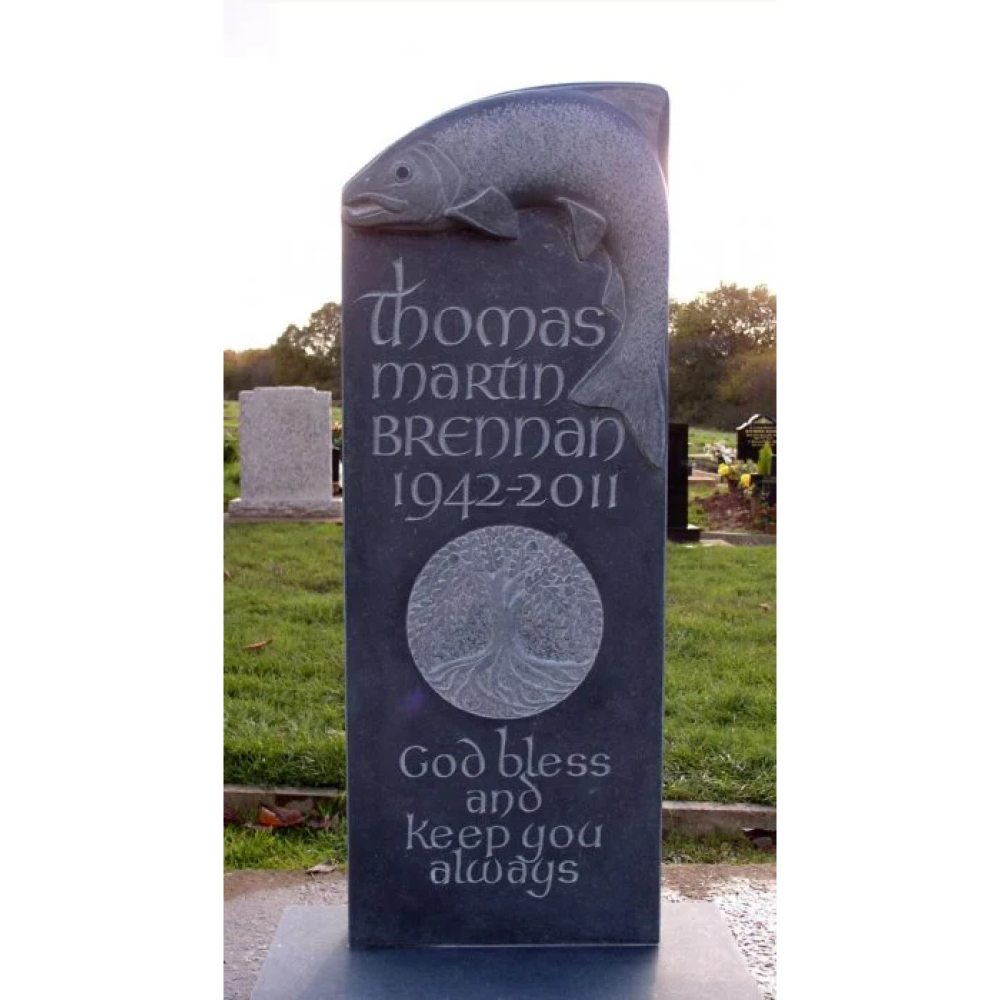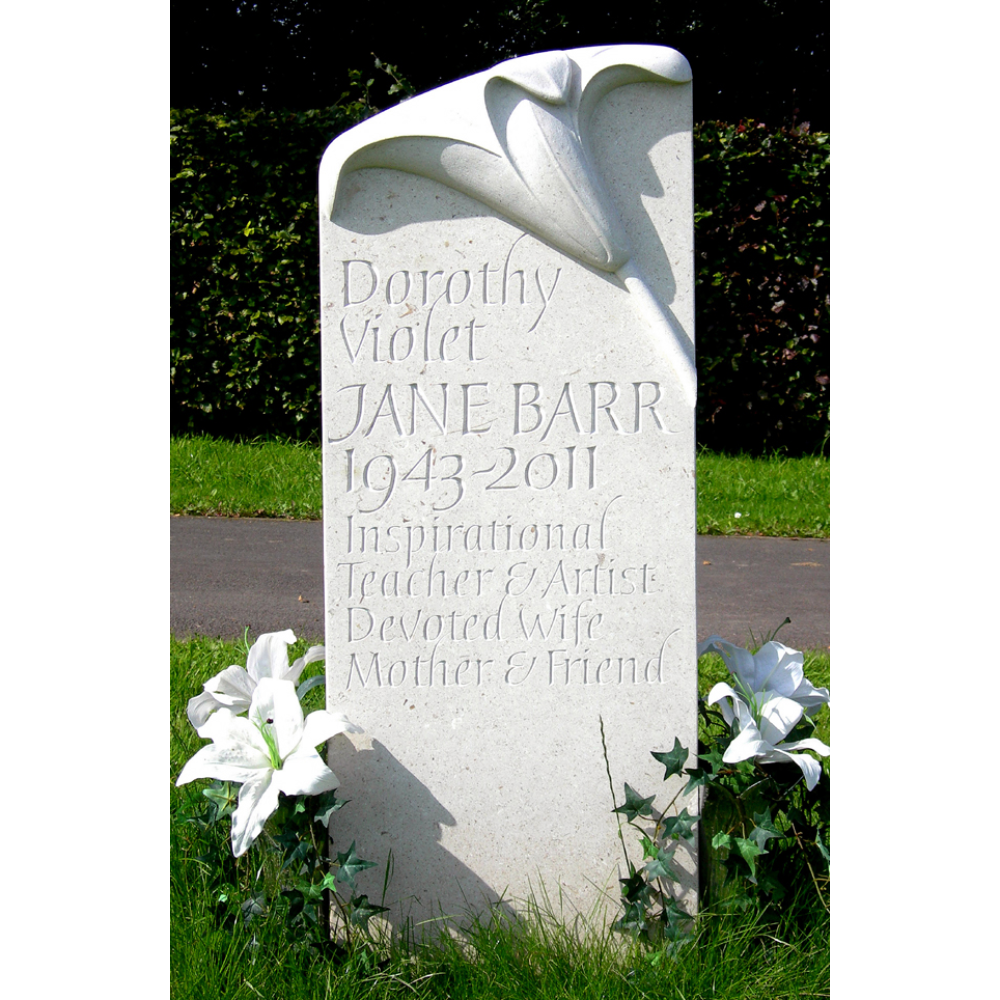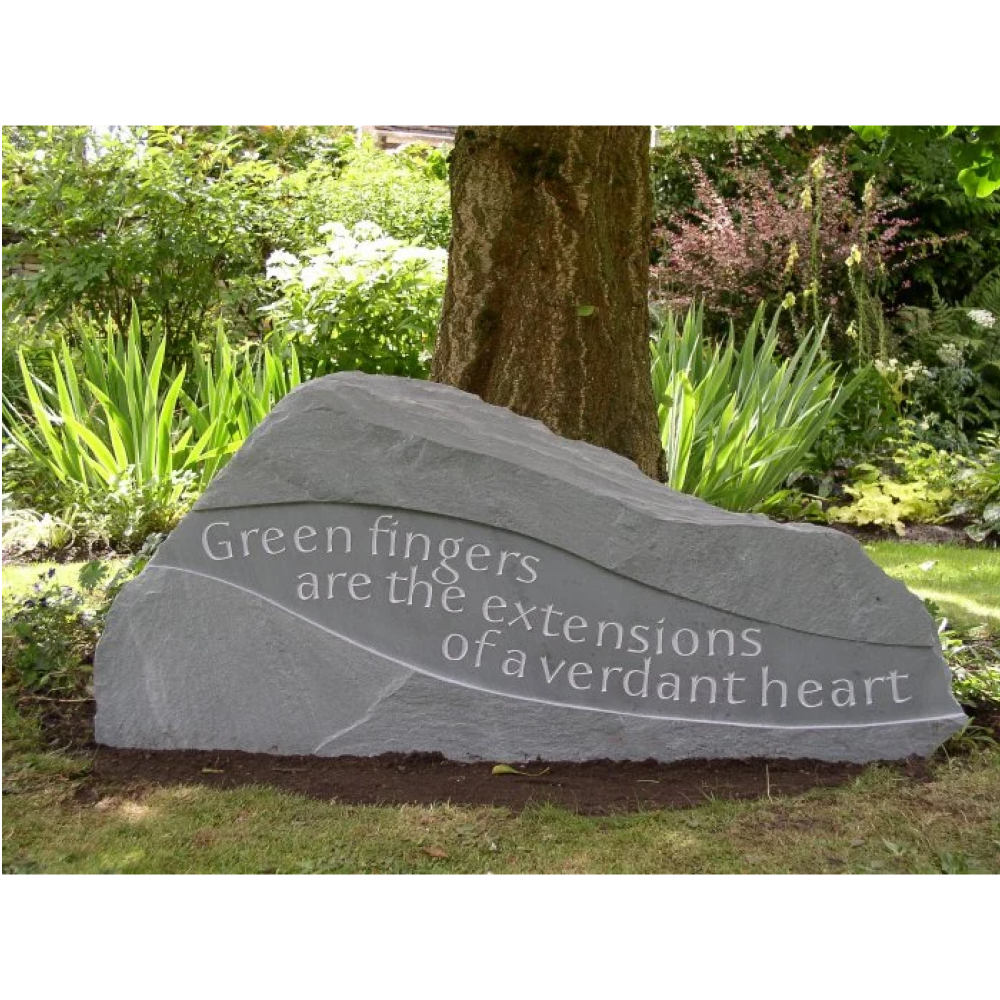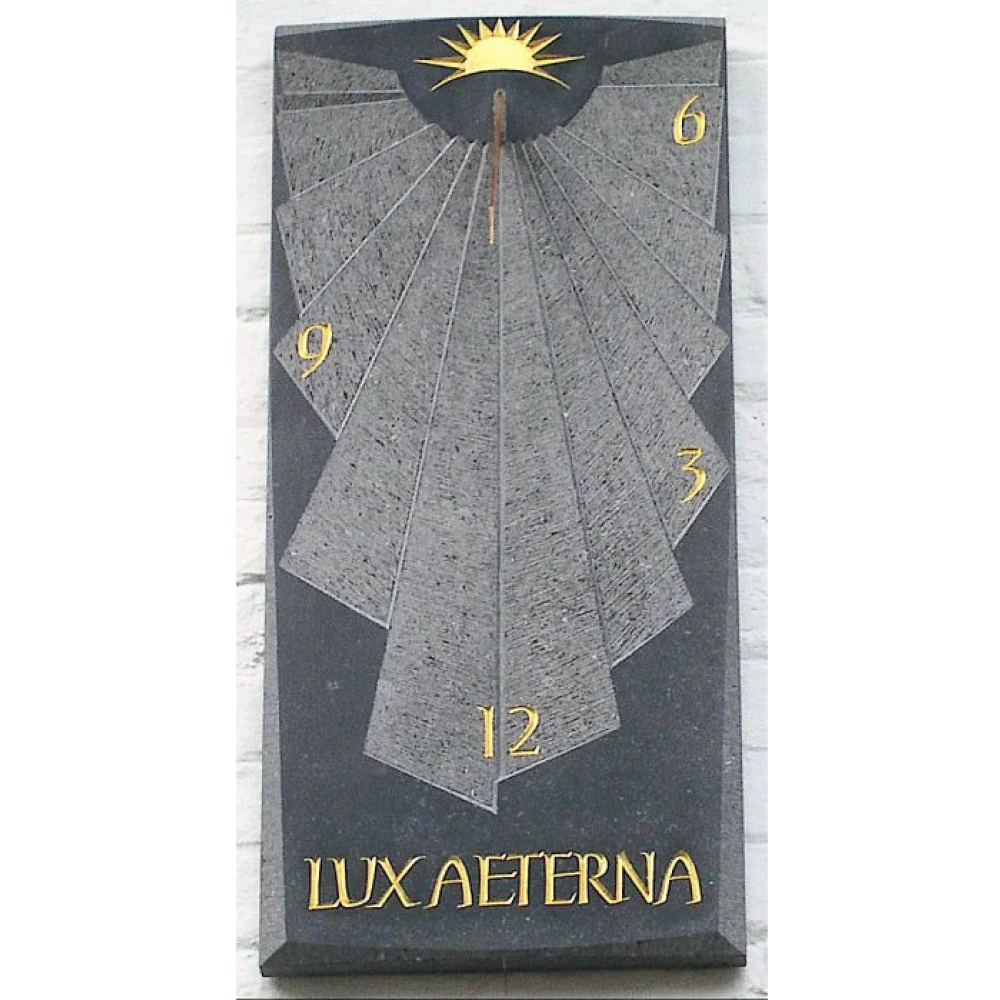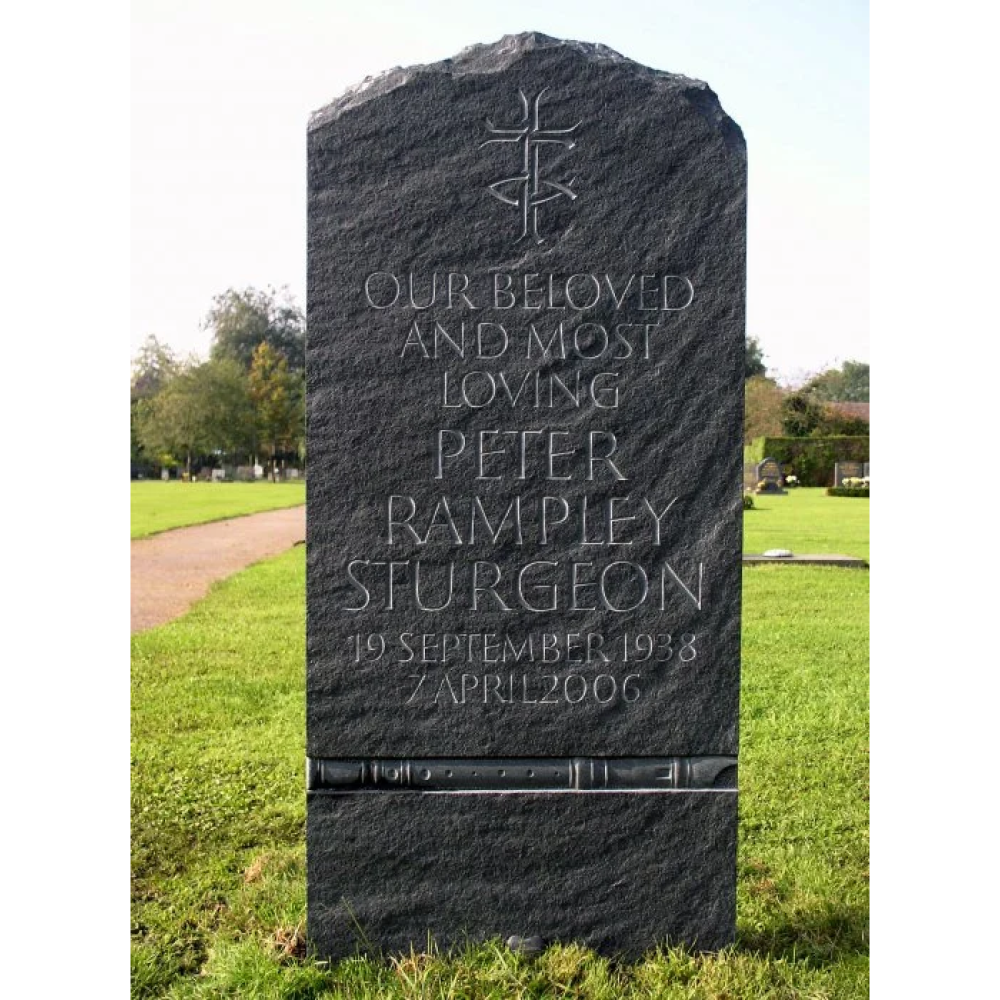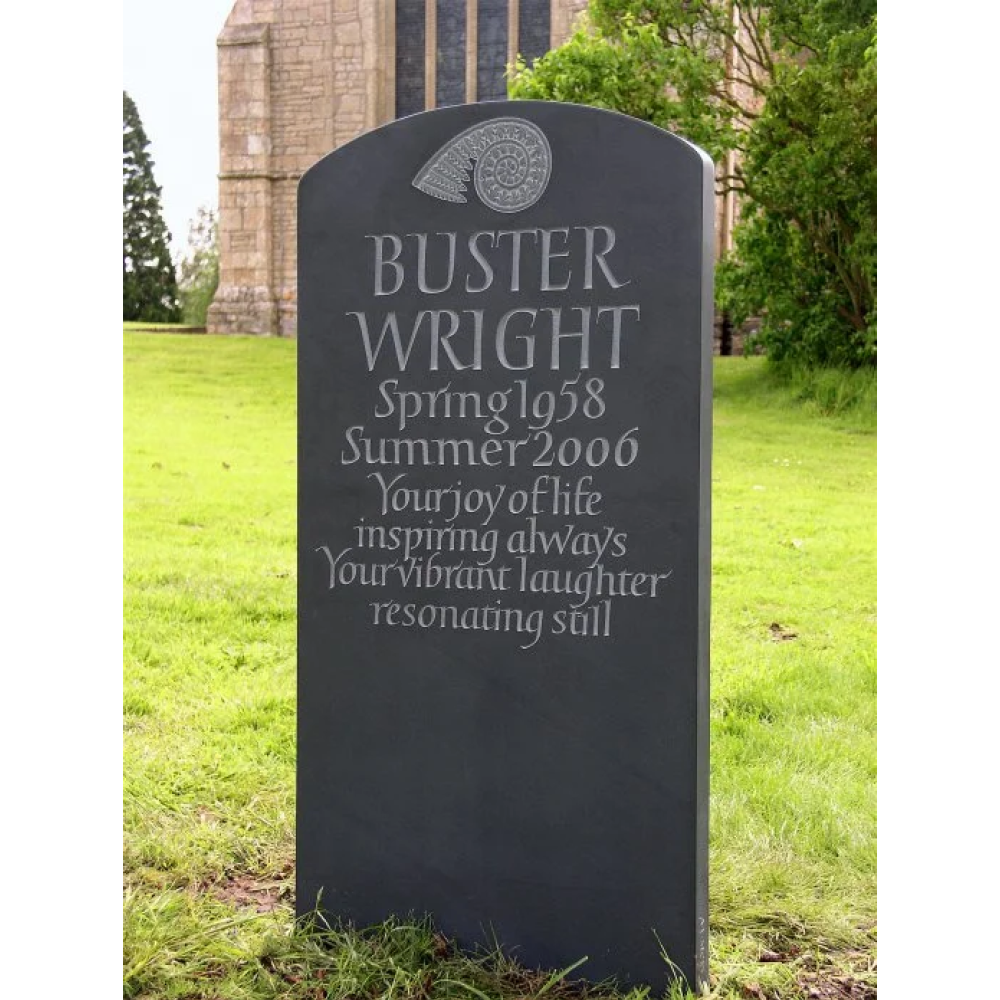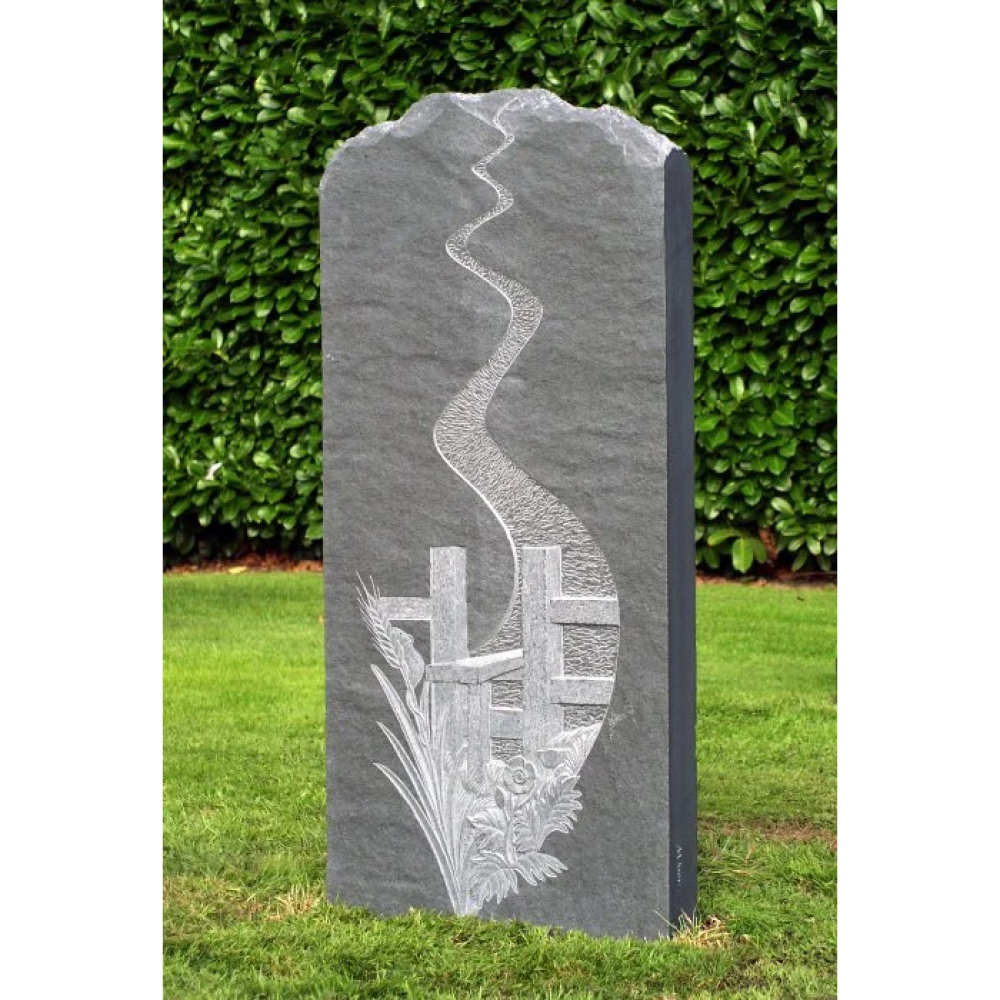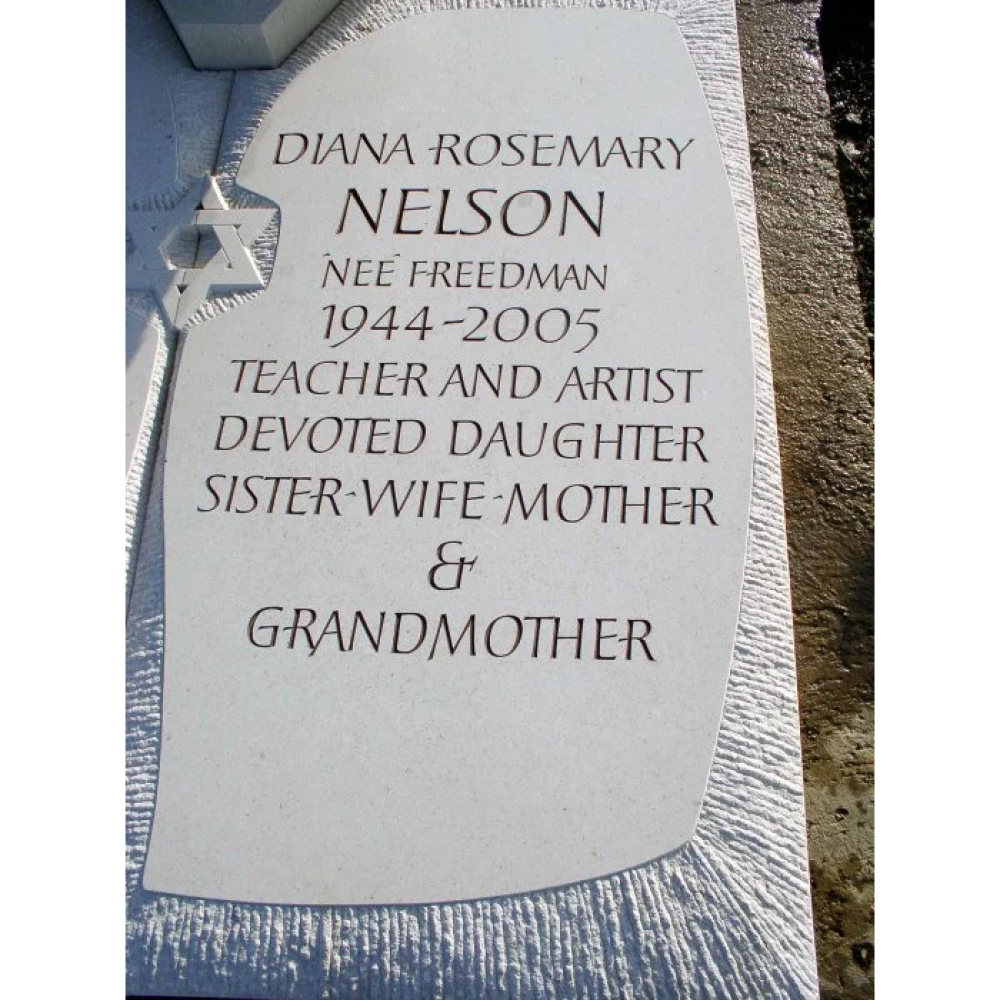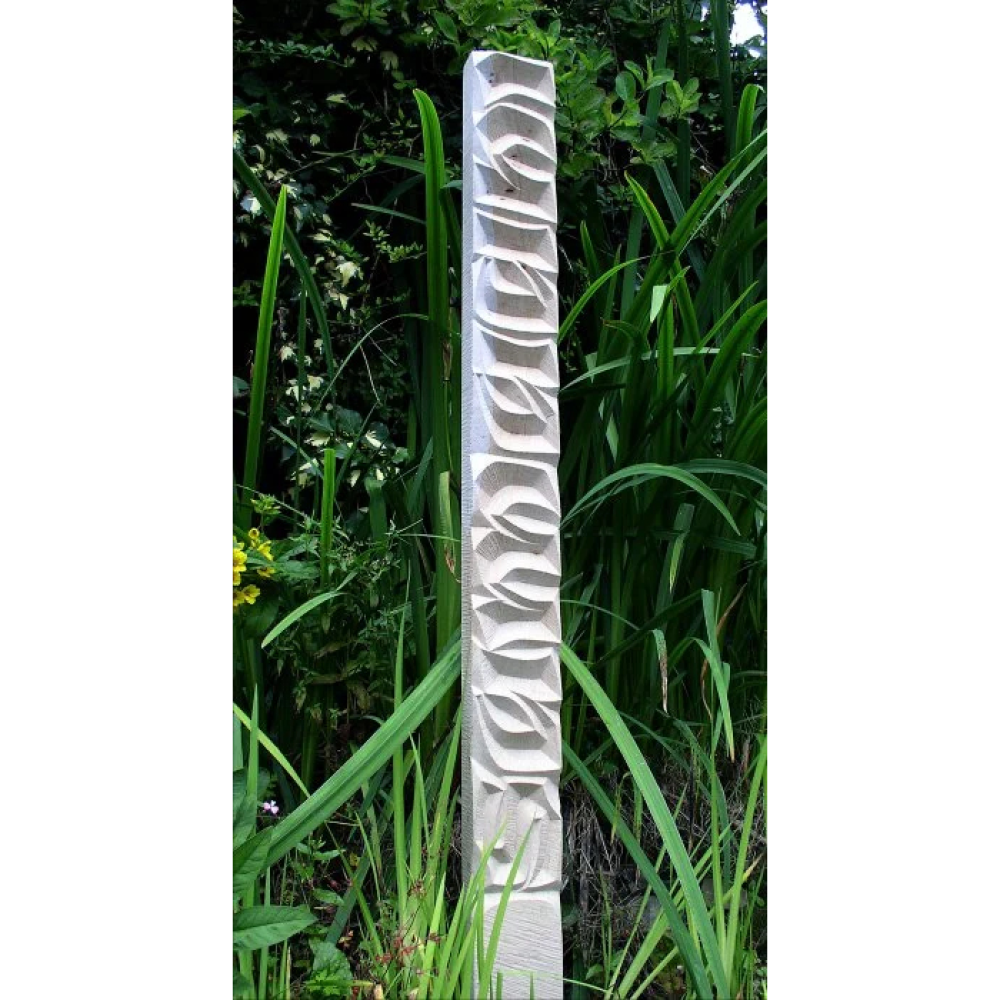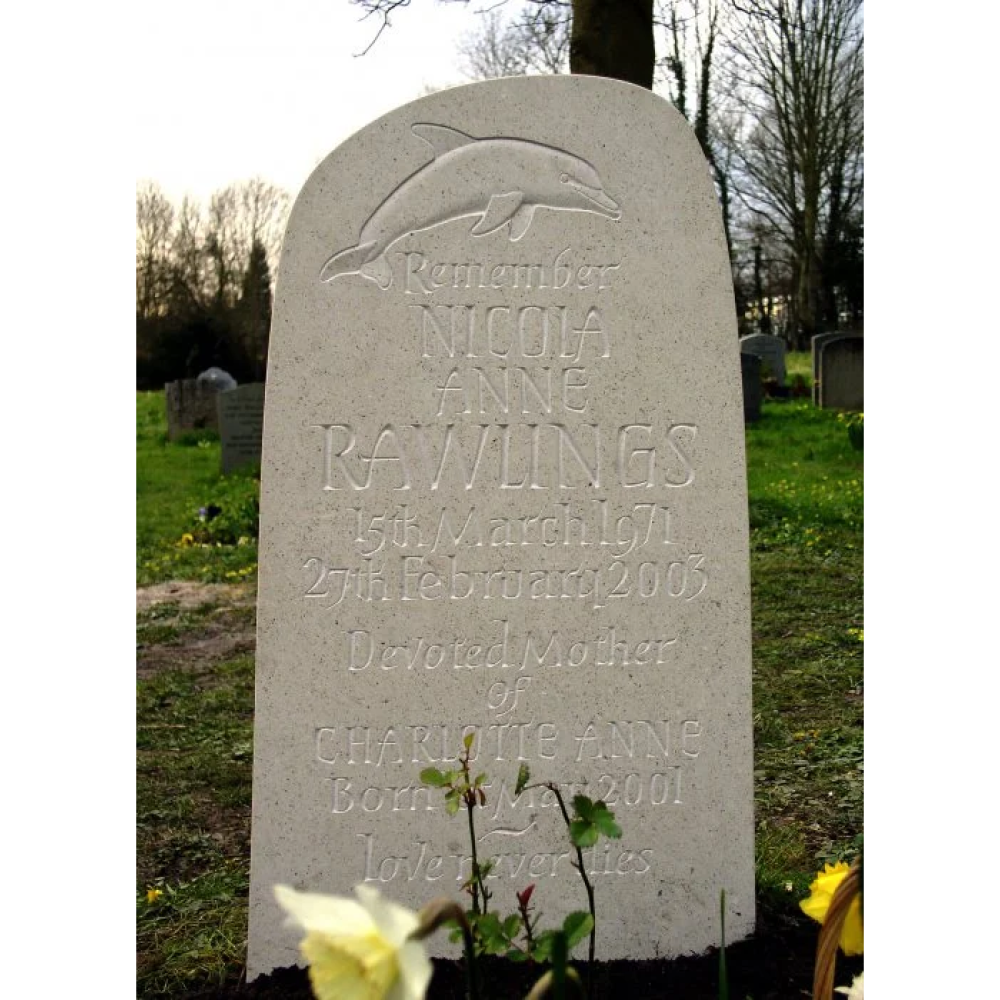
I produce a wide variety of commissioned work from memorials and garden features through to public art projects. Whenever possible I exploit the sculptural potential of a piece, integrating aesthetic and expressive qualities from overall shape to the textural feel of incised lettering, responding to each opportunity with due care and sensitivity with the aim of creating something unique.
Much of my work involves close collaboration with clients. This is particularly so in my work as a memorial artist. For the client, personal involvement with the creative process can prove a most rewarding experience, through working together in clarifying ideas and achieving a mutually satisfying design. It allows the work to be experienced through its making. =
My inspirations range from natural forms, ancient carvings from our and other cultures, and the history of carved lettering, to more contemporary art and calligraphy.